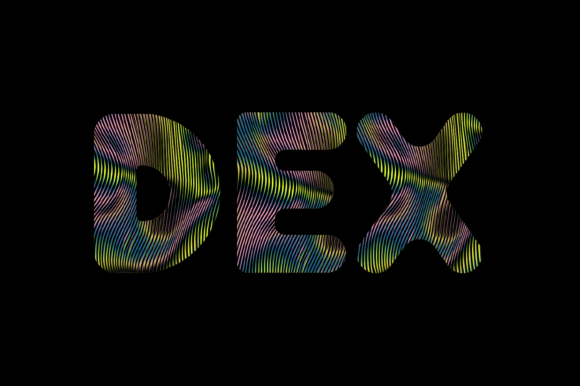
Prepare to be spellbound as we introduce Dex Font - the magnum opus of yai.salinas. This captivating display font is the embodiment of cool and unique design, leaving an everlasting impression on your creative endeavors. Its seamless adaptability makes it the ideal companion for an array of design projects, from the audacious to the sophisticated. Embrace the boundless possibilities of Dex Font and watch your creations transcend the ordinary.
With a name that exudes confidence and innovation, Dex Font is a brilliant synergy of form and function. Every curve, every stroke, every detail has been meticulously crafted to evoke a sense of wonder and intrigue. Its inherent versatility allows it to effortlessly elevate any design concept, whether you're crafting a captivating poster, an informative flyer, or an unforgettable print.
Immerse yourself in the limitless potential of Dex Font and explore the kaleidoscope of design possibilities that await. Let the enthralling allure of its characters captivate your audience and leave them spellbound with your creative prowess. Unleash your imagination and watch as Dex Font transforms your designs into masterpieces that resonate with the world.
Say goodbye to the mundane and embrace the extraordinary with Dex Font. Its captivating charm is guaranteed to ignite a spark of creativity within you, inspiring you to push the boundaries of design and create artworks that leave an indelible mark. So, embark on this enchanting journey with Dex Font and let your imagination soar to new heights.